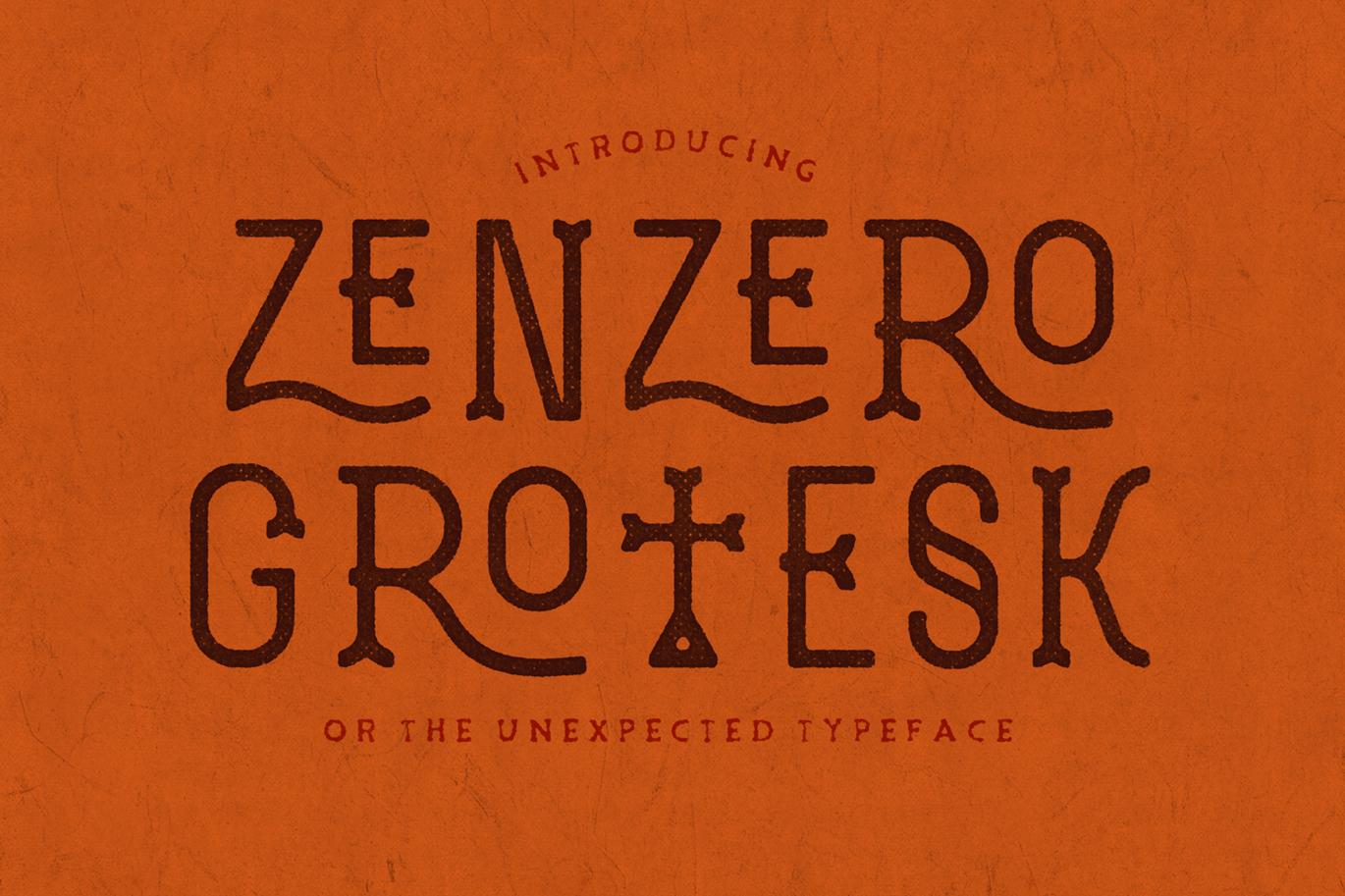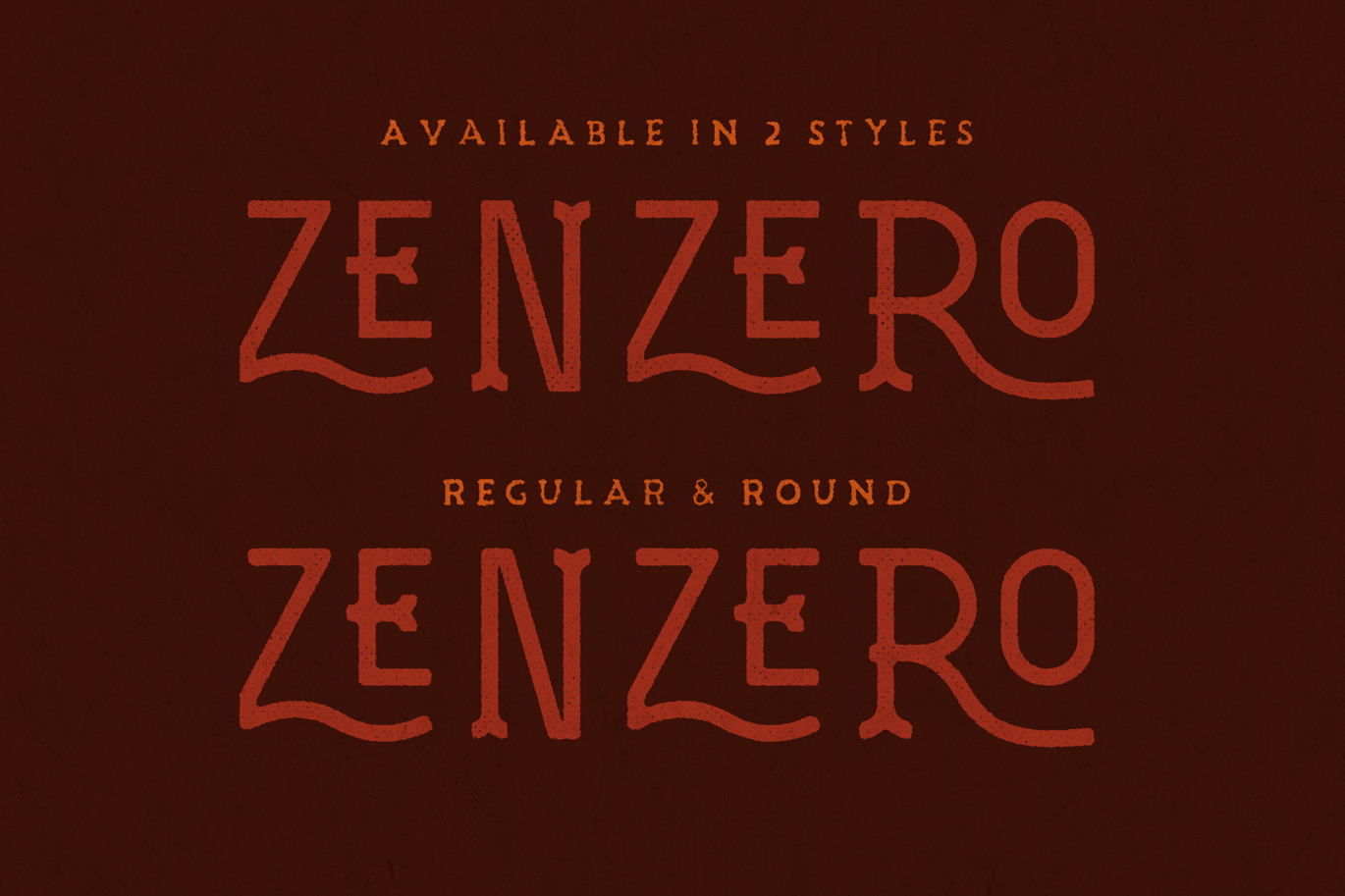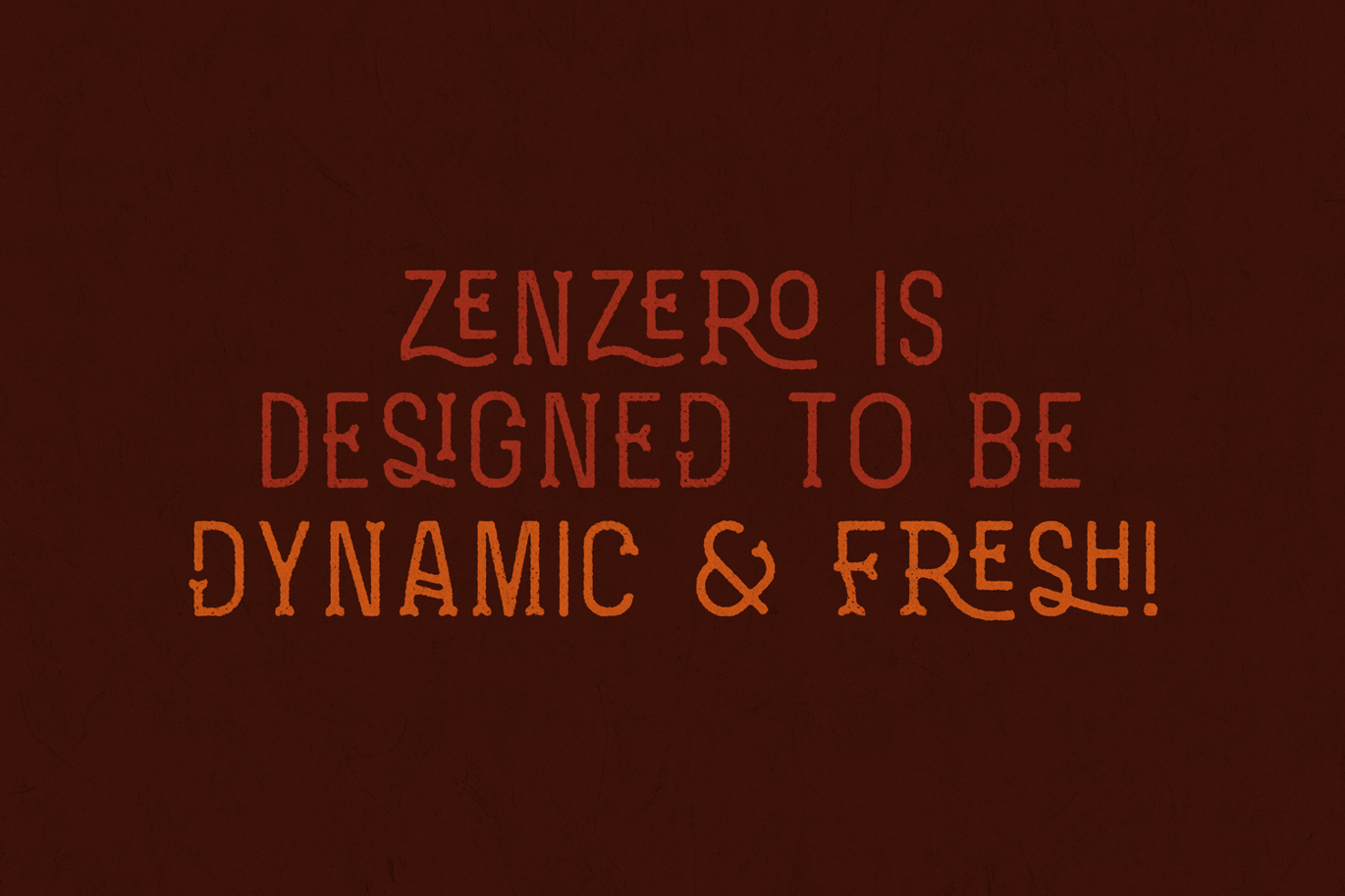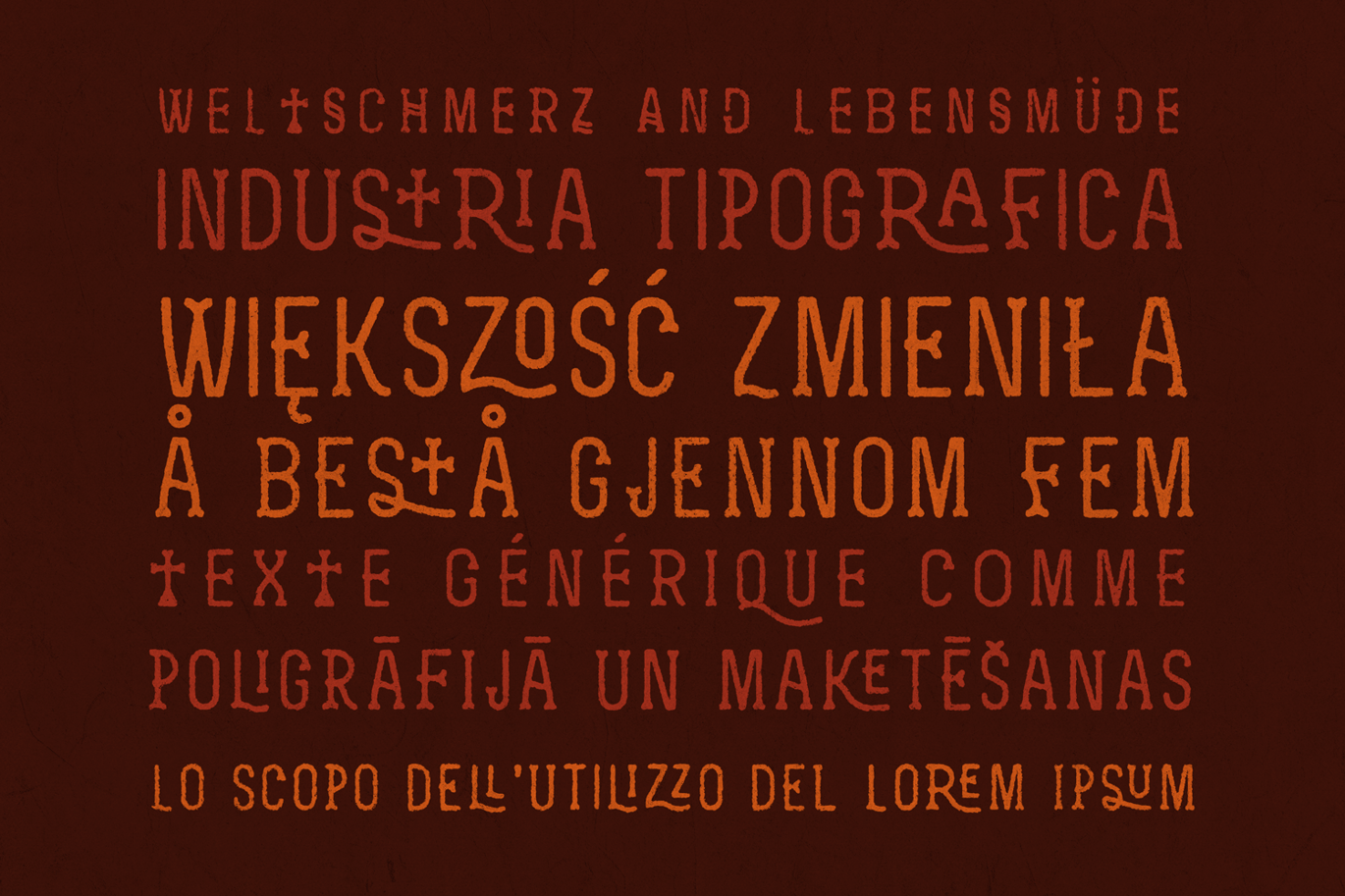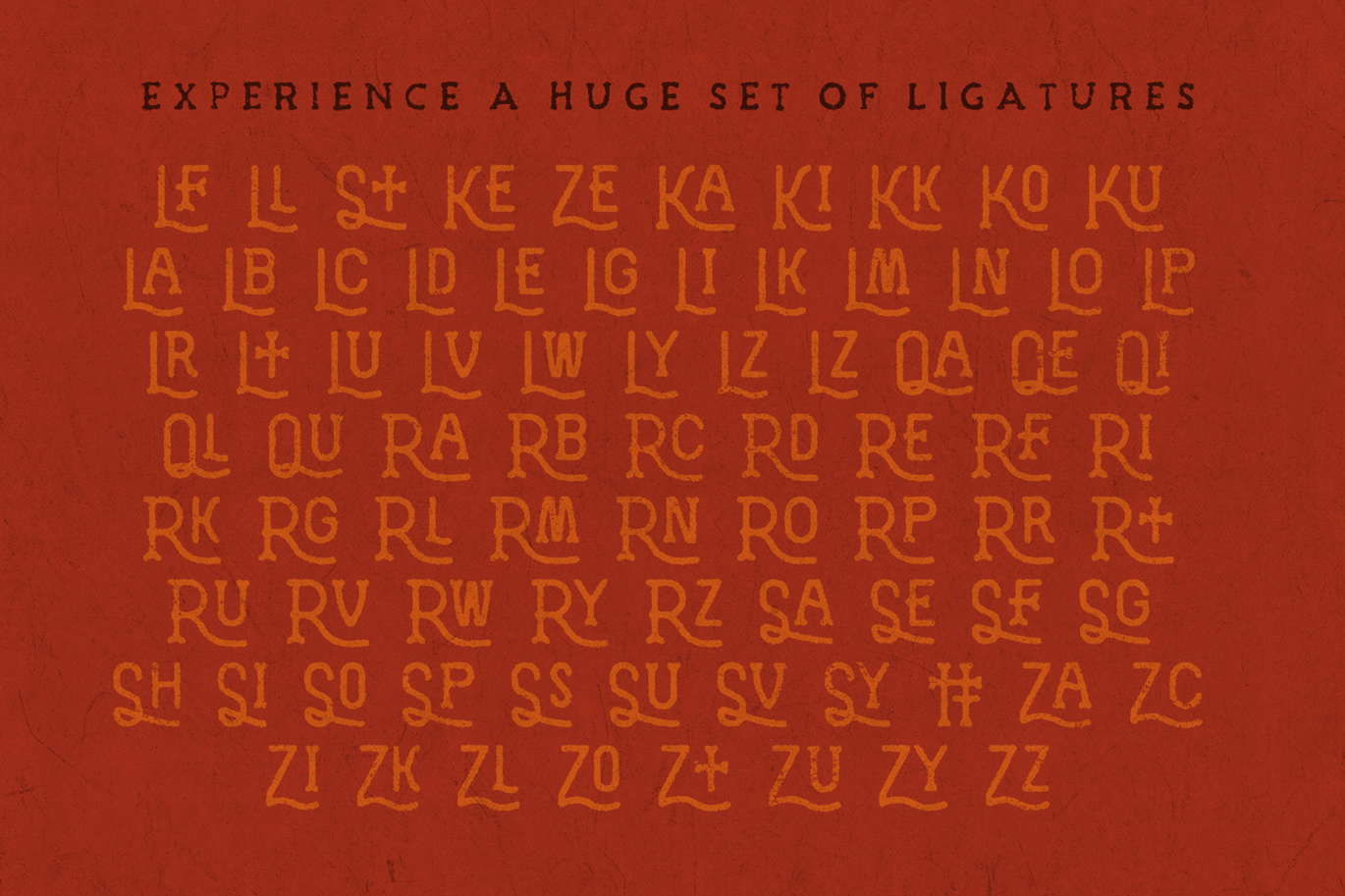
Zenzero Grotesk Typeface
A fresh, eccentric and stylish display font, mixture of sans serif and slab. Designed by Valerio Dell’Edera, Zenzero Grotesk is a font that can be given different uses. Its main virtue is the endless number of possibilities for you to write words, texts or paragraphs. It boasts tons of ligatures and stylistic alternate glyphs, for a complete control of the final result.